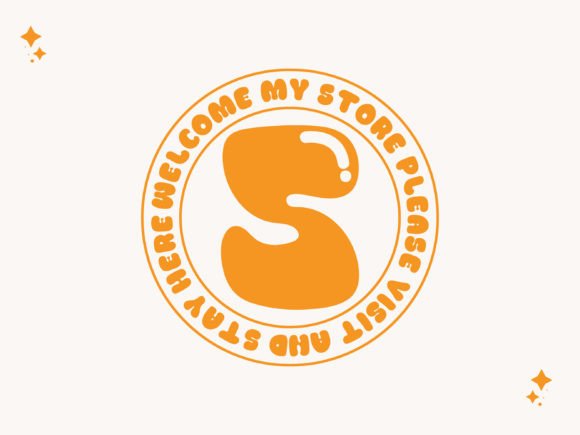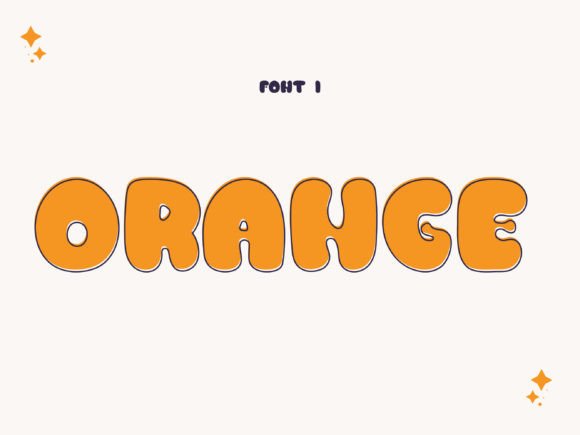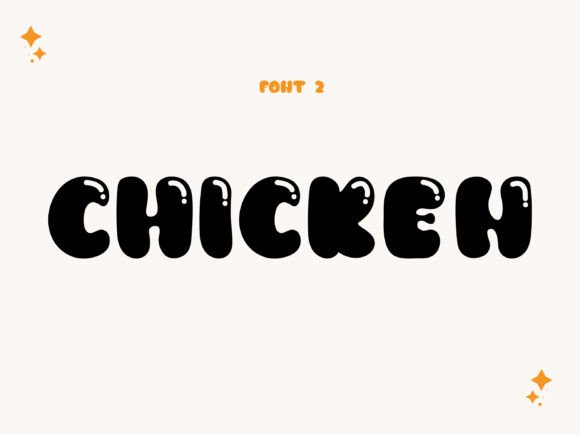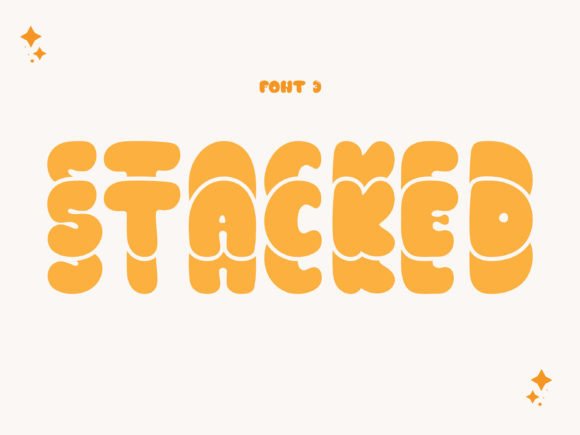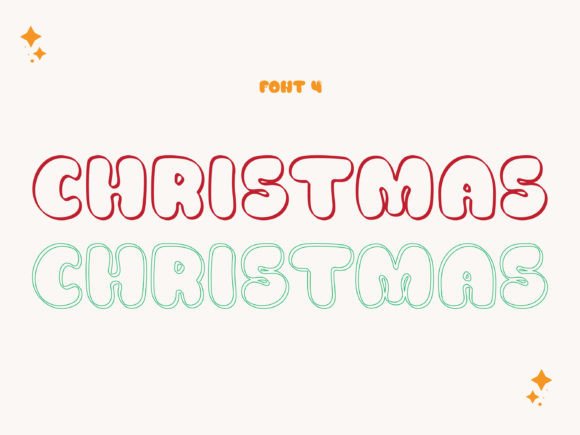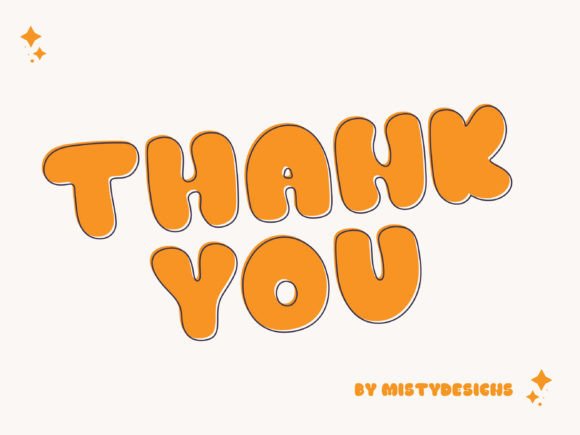
Introducing Groovy Font: The Ultimate Retro-Chic Addition to Your Design Arsenal
Are you tired of using the same old fonts in your designs? Look no further! Groovy Font is here to shake things up with its vibrant, retro charm and modern flair. This funky font is designed to captivate attention and infuse your designs with a fresh, eye-catching vibe that’s sure to impress.
What is Groovy Font?
Groovy Font is a carefully crafted typeface that embodies the spirit of the groovy era, with a modern twist. Its unique blend of retro charm and contemporary style makes it the perfect addition to any design project. Whether you’re a designer, crafter, or DIY enthusiast, Groovy Font is sure to become your go-to choice for creating eye-catching and memorable designs.
Key Features of Groovy Font
• Retro-Chic Design: Groovy Font boasts a distinctive retro aesthetic that’s reminiscent of the 1960s and 1970s, with a modern spin.
• Vibrant and Eye-Catching: The font’s bold and playful design ensures that your designs will stand out from the crowd and grab attention.
• Highly Versatile: Groovy Font is perfect for a wide range of design applications, from t-shirts and mugs to SVG files, retro prints, and signs.
• Easily Customizable: The font is designed to be easily customized, allowing you to experiment with different colors, sizes, and styles to suit your design needs.
Groovy Font is an ideal choice for designers and crafters looking to add a touch of retro flair to their projects. Whether you’re creating:
• Eye-Catching T-Shirts: Design stunning t-shirts that are sure to turn heads with Groovy Font’s bold and playful design.
• Mugs and Drinkware: Add a funky touch to your mug and drinkware designs with this vibrant font.
• Retro Prints and Posters: Create stunning retro-style prints and posters that are perfect for decorating homes, offices, or social spaces.
• SVG Files and Cut Files: Use Groovy Font to create custom SVG files and cut files for your craft projects, such as vinyl decals, iron-on designs, and paper crafts.
• Signs and Displays: Design eye-catching signs and displays that are sure to grab attention with this groovy font.
Why Choose Groovy Font?
With Groovy Font, you can:
• Add a Touch of Retro Charm: Bring a dash of retro flair to your designs and stand out from the crowd.
• Save Time and Effort: With its highly legible and versatile design, Groovy Font saves you time and effort in creating eye-catching designs.
• Enhance Your Brand: Use Groovy Font to create a unique and recognizable brand identity that resonates with your audience.